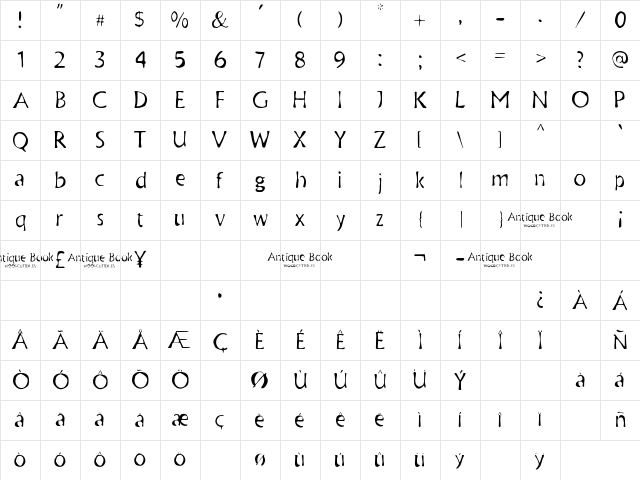
Antique Book Regular
Design Context for Antique Book
Antique Book wears its vintage influences proudly, with letterforms that recall mid-century signage, classic packaging, and nostalgia-driven design.
Font Pairing: Combine Antique Book with a simple slab or neutral sans - period-accurate companions reinforce the vintage feel without competing for attention.
Pro Tip: Lean into Antique Book's period character by pairing it with aged paper textures, muted colour palettes, and vintage illustration styles.